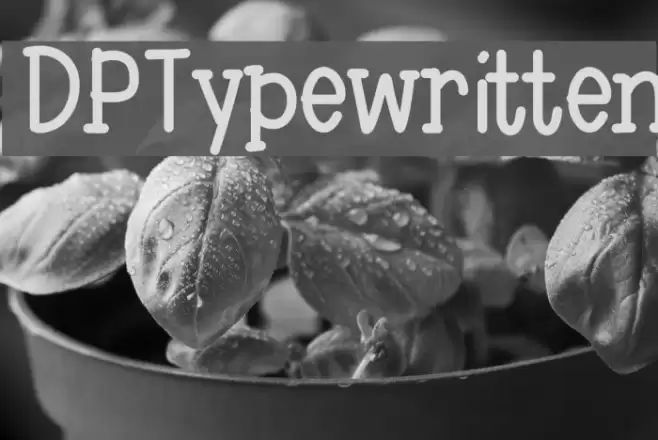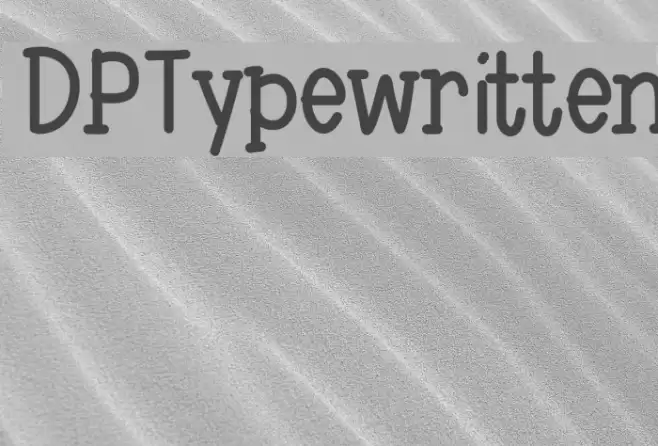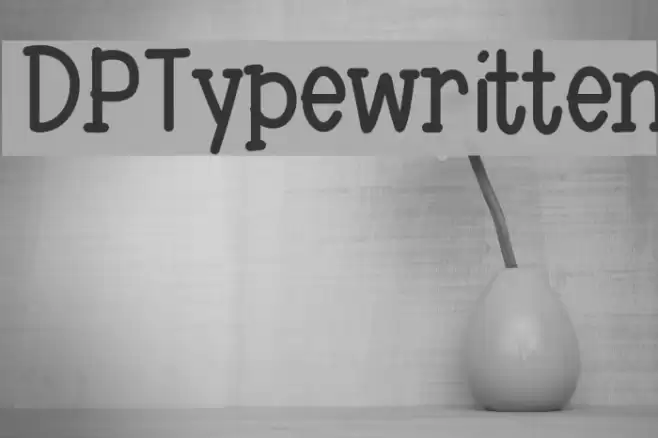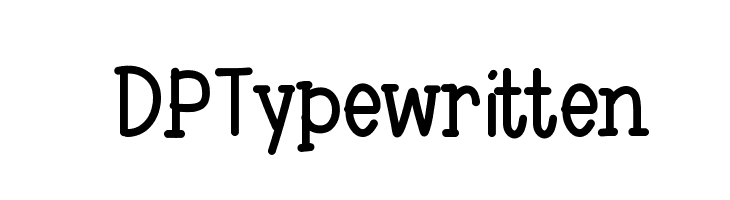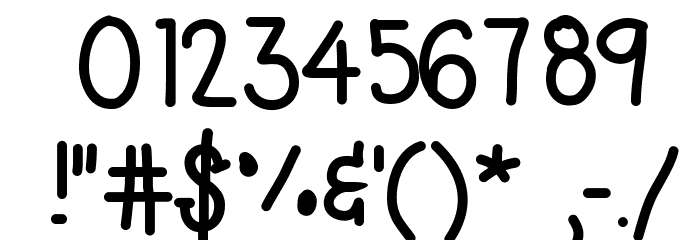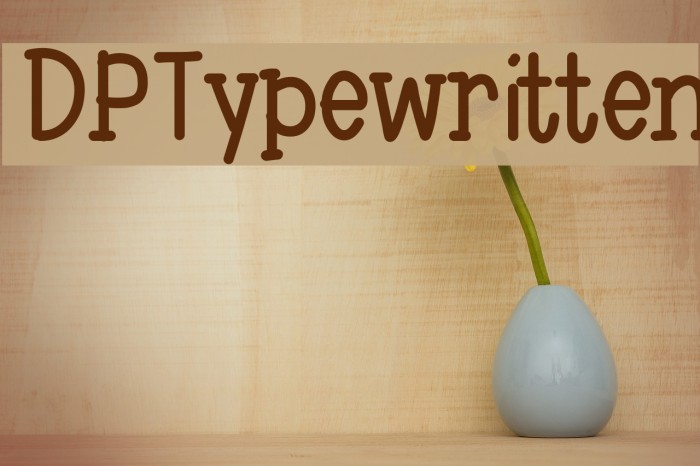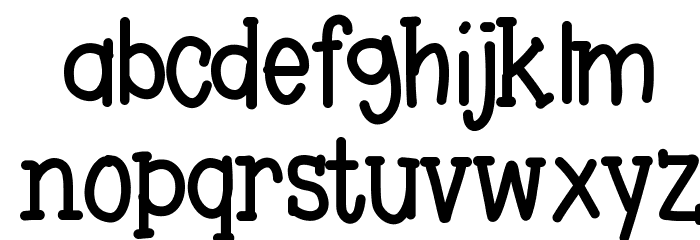
DPTypewritten Font
DPTypewritten Description
This font features a playful and casual style, reminiscent of typewritten text but with a modern twist. The characters are rounded and slightly irregular, giving them a hand-drawn appearance. The uppercase and lowercase letters maintain a consistent style, with a slight variation in stroke width that adds to the font's charm. The numerals and special characters are designed to match the overall aesthetic, making them suitable for a variety of creative projects. The font's informal and friendly look makes it ideal for designs that aim to convey warmth and approachability.
A playful, typewriter-inspired font with a modern, hand-drawn feel from Uncategorized fonts.
- Proposed Projects: Ideal for greeting cards, children's books, casual branding, and social media graphics.
- Use Case: Logos, Headlines, Informal Text